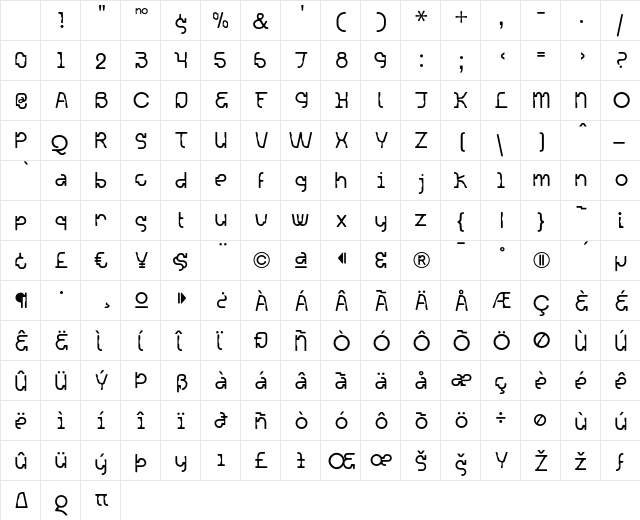
Acetone Regular Free Font
Acetone Regular
Design Context for Acetone
Acetone is a composed and adaptable typeface that performs quietly and consistently across a wide range of design contexts.